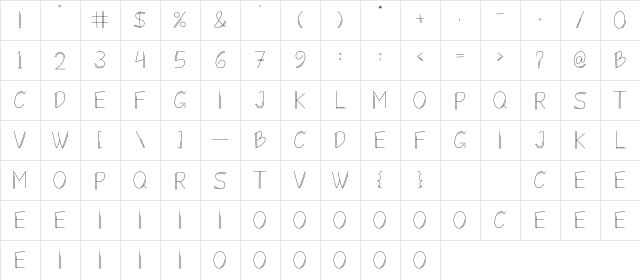
Monolism uses fixed-width spacing throughout, giving it the structured, systematic character associated with coding environments and technical documentation.
Pro Tip: Use Monolism with slightly increased line-height for extended reading - fixed-width spacing can feel dense in longer passages without extra breathing room.